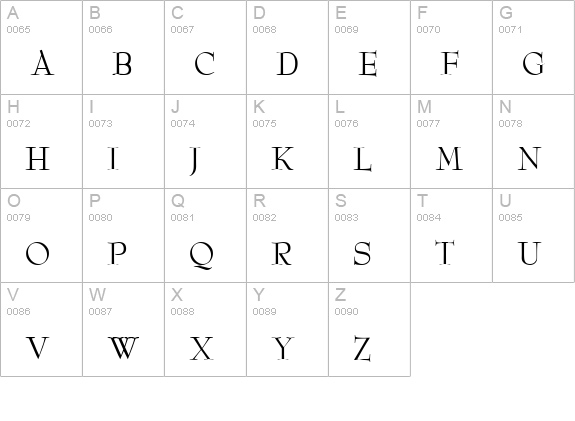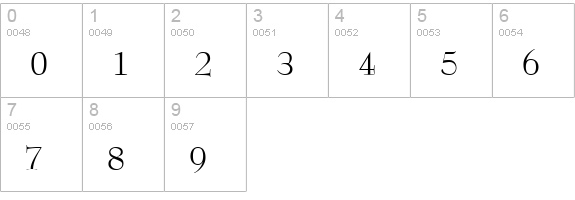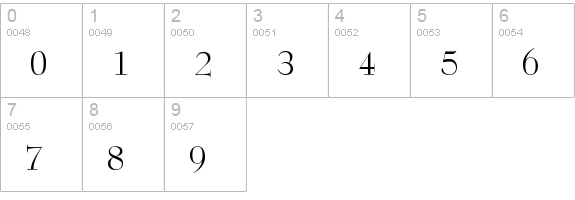
Reed Regular is the standard, neutral variant in the Reed typeface family \xE2\x80\x94 well suited to general body text, paragraphs, and standard typographic work.
Reed Regular font is a contemporary and versatile typeface that effortlessly combines elegance with a touch of playfulness. This font is perfect for a wide range of creative projects, from branding and packaging to editorial design and web graphics. With its clean lines and balanced proportions, Reed Regular exudes a sense of sophistication while maintaining readability. One of the standout features of Reed Regular font is its versatility. It can easily adapt to different design styles and contexts, making it an ideal choice for both professional and personal projects. Whether you want to create a sleek and modern look or a more whimsical and artistic feel, this font has got you covered. And the best part? Reed Regular font is available for free download at FontsMarket.com. You can easily access this font and start using it in your designs without any hassle. Whether you're a professional designer or just starting out, this free font is a valuable addition to your typography arsenal. So why wait? Take advantage of the freely available Reed Regular font and bring your designs to life. With its versatility, elegance, and availability, this font is sure to elevate your creative projects to new heights. Download it now and let your imagination run wild.